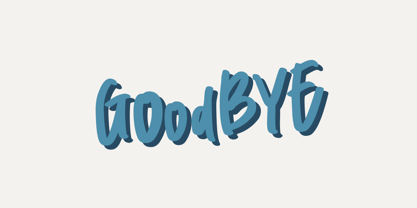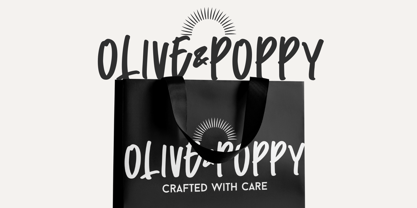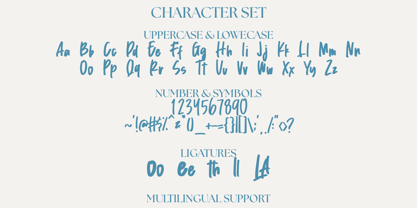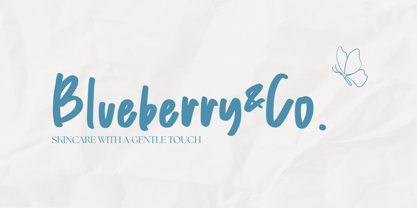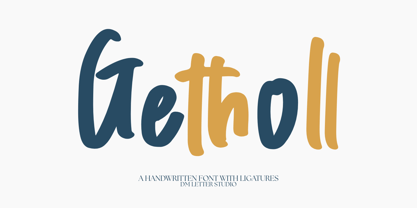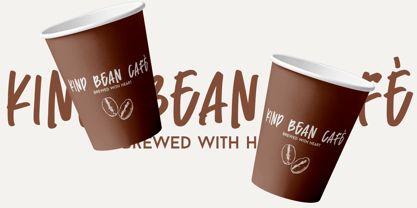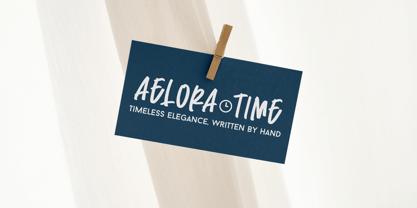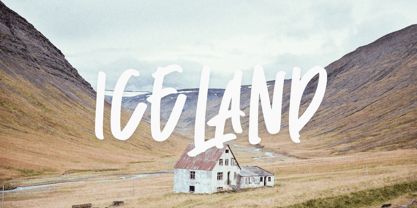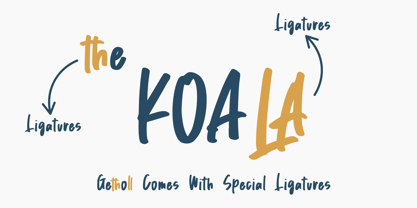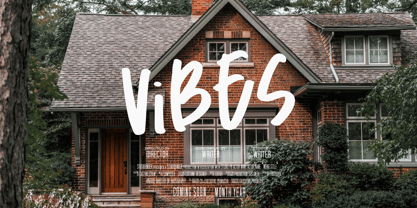
Getholl
The Getholl Font Family was designed by Dimas Prasetyo and published by DM Studio. Getholl contains 1 styles.
Getholl – A Handwritten Font with Stylish Ligatures
Say hello to Getholl, a unique handwritten font featuring elegant ligatures and a smooth, modern brush style. It’s bold yet friendly, making it the perfect corporate logo brush font for brands seeking a creative yet professional look.
Crafted with precision and personality, Getholl includes beautifully flowing ligatures that add a natural handwriting touch to your designs—great for product branding, packaging, digital marketing assets, and logo design. With its distinct balance between casual elegance and brand-focused clarity, Getholl turns every word into a statement.
Whether you're building a boutique brand, food product, or tech startup, this font helps you maintain a stylish yet trustworthy voice.
• Uppercase & Lowercase Letters
• Ligatures for natural flow
• Numbers & Punctuation
• Multilingual Support
• Corporate logo brush font applications
• Brand identities
• Social media graphics
• Personalized merchandise
• Beauty, lifestyle, and food packaging
• Editorial layouts and branding decks